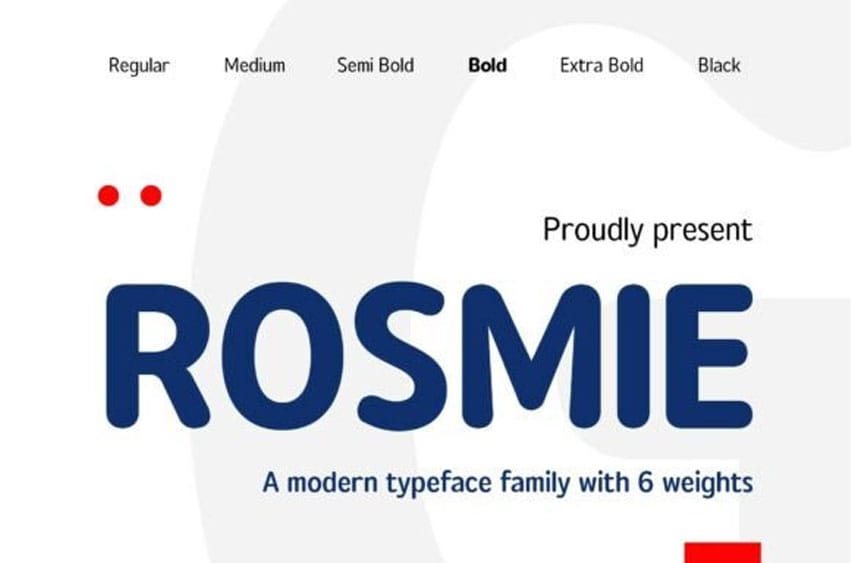
Rosmie Font is a robust and highly functional modern sans serif typeface, built for clarity, versatility, and commanding contemporary branding.
This extensive family features a clean, geometric structure with slightly softened, humanist curves, striking a perfect balance between technical precision and friendly readability. Its defining strength is its comprehensive range of six meticulously crafted weights—from Regular to Black—giving designers the ultimate control over hierarchy and emphasis.
The font’s uniform character width and high x-height ensure outstanding legibility across both print and digital platforms, making it a reliable workhorse for complex projects. Rosmie is ideally suited for corporate branding, website user interfaces, mobile app design, impactful advertising campaigns, and contemporary editorial body copy.
Its multiple weights provide the necessary tools to create a cohesive, professional, and powerful visual identity that can adapt effortlessly to any design requirement.